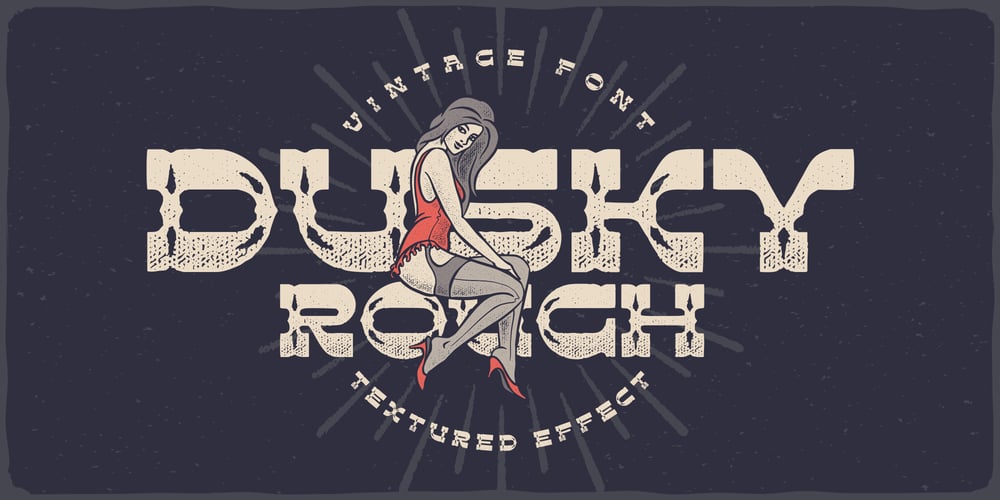
Dusky Rough
Dusky Rough font
Dusky Rough Font Family was designed by Gleb Guralnyk and published by Gleb Guralnyk. Dusky Rough contains 1 styles and family package options. Hi there! Introducing a vintage font with rough textured effect. It’s a bold western style font with slab serifs and decorative spikes. Dusky Rough supports most of west european and cyrillic languages (please check out a screenshoit with all available characters).